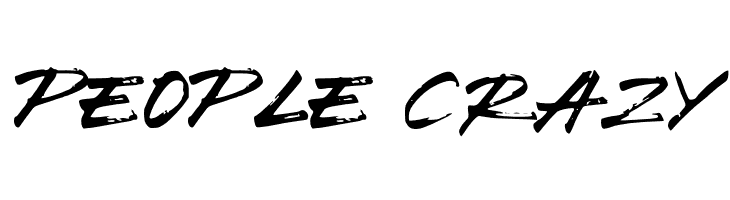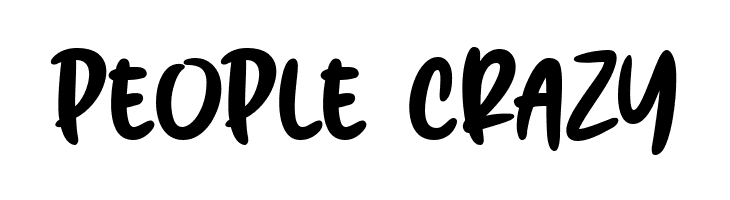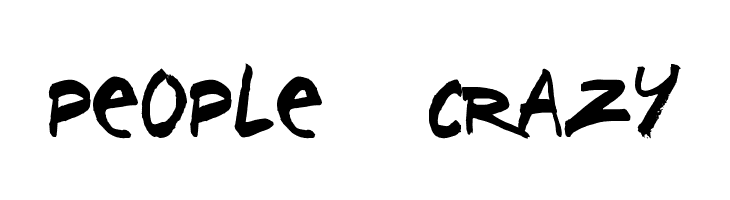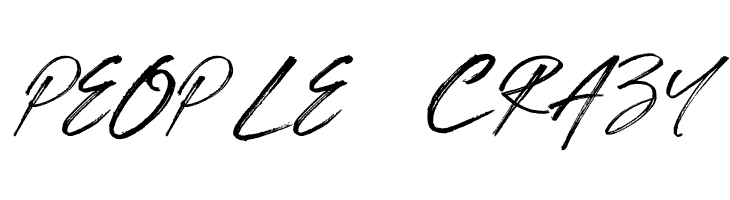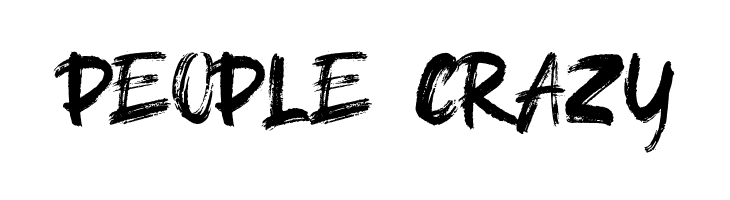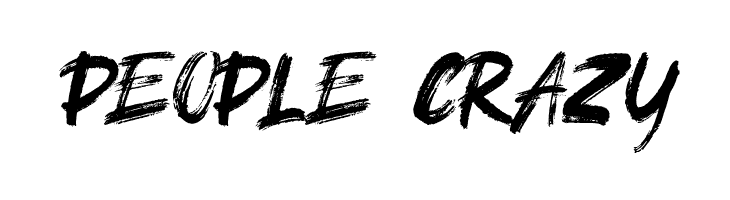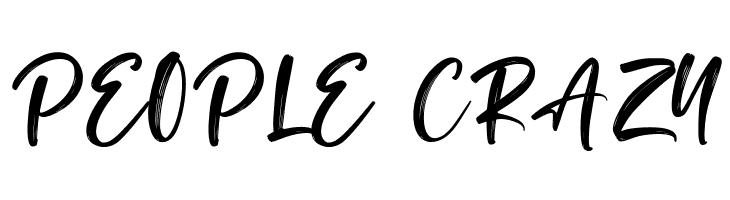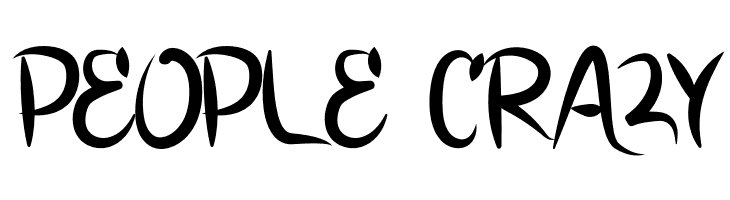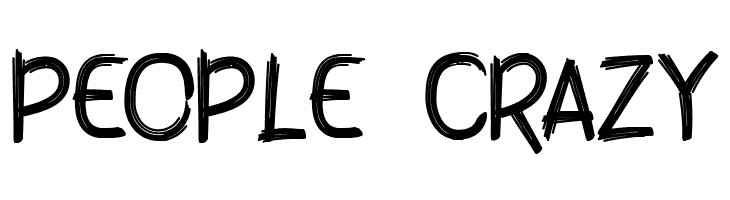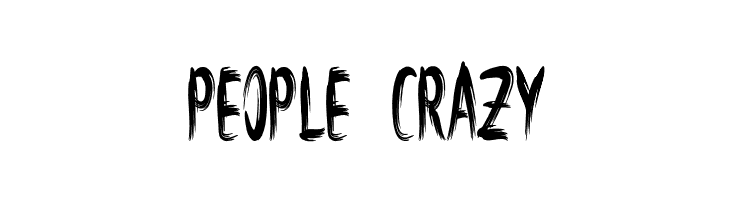
A bold, playful font with thick, rounded strokes and whimsical curves.
A bold, elegant script font with flowing, cursive letterforms.
A flowing, cursive font with elegant, sweeping strokes and high contrast.
A bold, geometric font with a digital, pixelated style.
A bold, energetic, hand-drawn font with brush-like strokes and a lively appearance.
A lively, expressive script font with a modern, handwritten style.
An elegant and decorative script font with ornate loops and swirls.
A dynamic, cursive script font with fluid, expressive strokes.
A playful, hand-drawn style font with a whimsical and artistic flair.
A bold serif font with strong strokes and pronounced serifs, offering a modern twist on traditional design.
A bold, brushstroke typeface with an energetic, handcrafted style.
A dynamic brushstroke-inspired font with an artistic and textured appearance.
A bold, brush-style font with a dynamic and creative appearance.
A dynamic brush script font with fluid, expressive strokes and artistic flair.
A brush-style font with a glitch effect, offering a modern and edgy look.
A bold, brush-style font with a handwritten, dynamic appearance.
A bold, brush-style font with a playful and energetic vibe.
A bold, dynamic brush-style font with textured, hand-painted strokes.
A bold, handwritten font with a playful brush marker style.
A playful, hand-drawn script font with dynamic strokes and decorative flair.
A bold, brush-style font with dynamic and expressive characters.
A bold, brush-style font with a dynamic and expressive handwritten look.
A dynamic brush script font with fluid, expressive strokes.
A dynamic, brush-style font with expressive, hand-painted strokes.
A bold, brush-style font with a hand-drawn, energetic appearance.
A bold, brush script font with dynamic and expressive strokes.
A bold, brushstroke-style font with a dynamic and artistic flair.
A dynamic brush script font with fluid, natural strokes and a casual, artistic style.
A bold, expressive brush-style font with dynamic strokes and a hand-painted look.
A bold, brush-style font with dynamic, hand-painted strokes.
A bold, brushstroke font with a dynamic and handmade appearance.
A bold, brush-style font with a lively, hand-painted look.
A bold, expressive brushstroke font with dynamic, artistic flair.